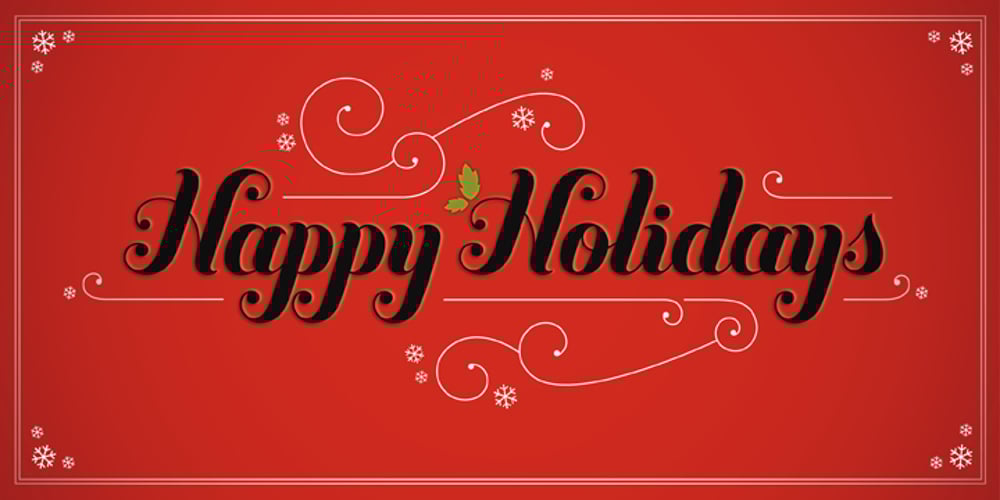
Buttermilk Font Family was designed by Jessica Hische and published by Jessica Hische. Buttermilk contains 1 styles and family package options. Buttermilk is the first font from illustrator/designer/typographer Jessica Hische. It’s a wonderful display script that is feminine but bold. It’s equipped with decorative caps (which would make great drop-caps), fancy numerals, and a far too extensive array of ligatures (automatic in most programs thanks to OpenType) to make it easier for you to set it beautifully.